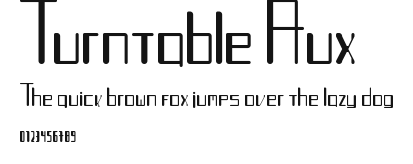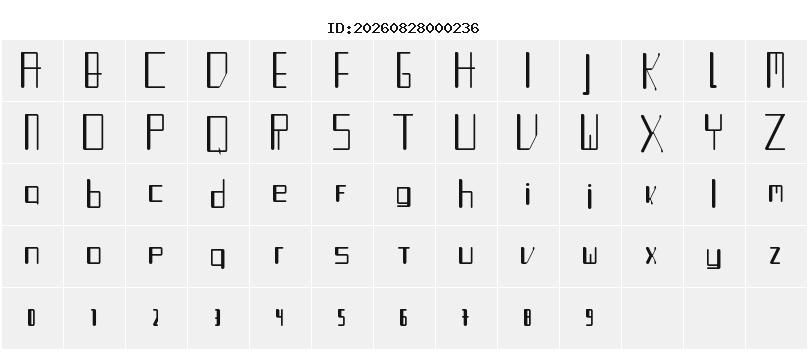
• Font Name: Turntable Aux
• Designer: H.G. Blakeman
• Manufacturer: Harried Type Co.
About Turntable Aux.ttf
Turntable Aux.ttf is a modern, elegant sans-serif font designed for ultimate readability and visual harmony. Perfect for branding, headlines, web design, and print materials.